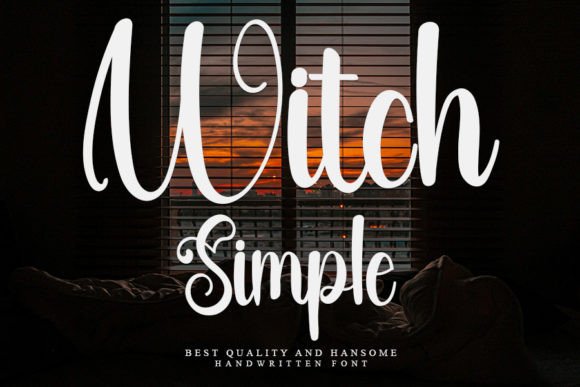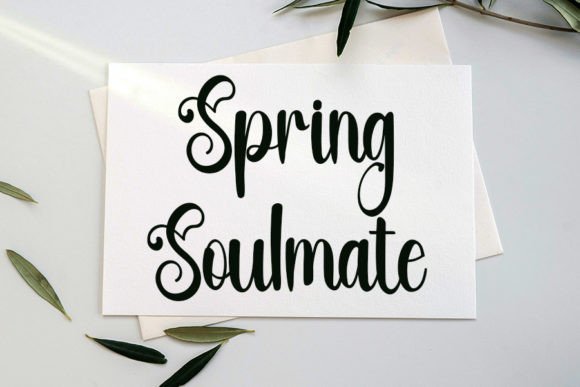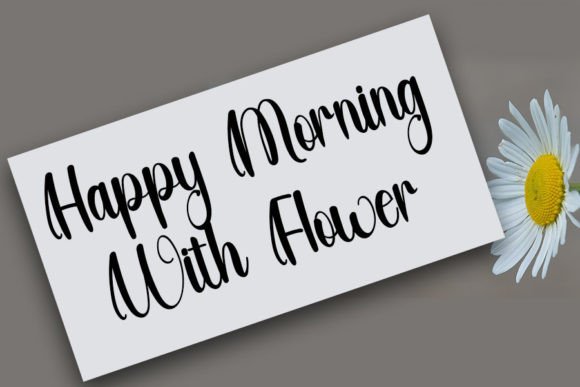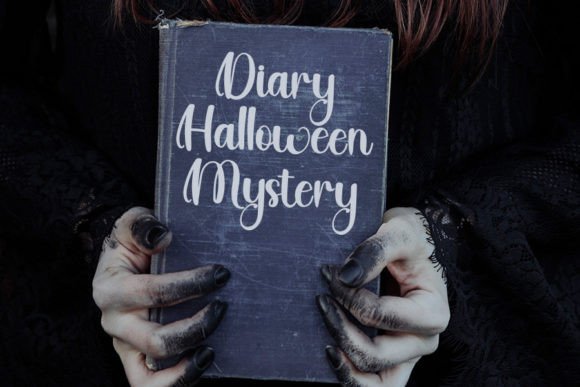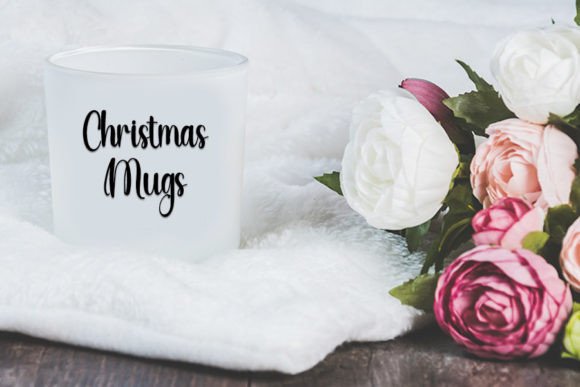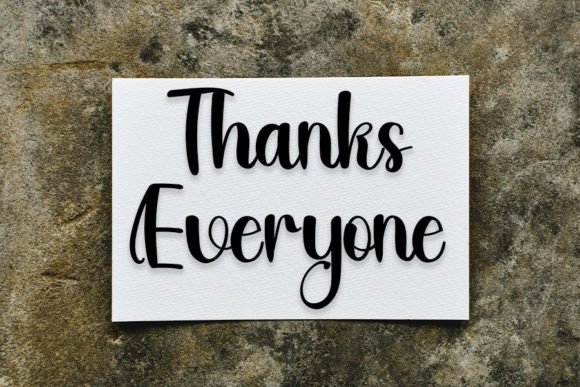
**Simple Witch** is a beautiful and refined script font that showcases a classy, elegant, and modern appearance. This versatile font is well-suited for a diverse range of design applications, making it an ideal choice for logos, branding, invitations, stationery, wedding designs, social media posts, and more.
The script style of **Simple Witch** contributes to its classy and elegant aesthetic. With flowing and graceful letterforms, this font adds a touch of sophistication to any project, making it suitable for designs that require a timeless and refined look.
In logos and branding, **Simple Witch** becomes a defining element that communicates a sense of style and modernity. Its script design adds a touch of elegance, making it suitable for businesses and projects that want to convey a polished and sophisticated image.
For wedding designs and invitations, the font brings a level of class and beauty that enhances the overall aesthetic. Its modern look makes it versatile, fitting into various wedding themes and styles.
In social media posts and stationery, **Simple Witch** stands out as a font that adds a touch of elegance to your visual communication. Whether used in digital or print media, its refined appearance creates a lasting impression.
The flexibility of **Simple Witch** extends to various design applications, allowing it to enhance the visual appeal of a wide array of projects. Its modern and classy look makes it suitable for creating a cohesive and polished design across different platforms.
In conclusion, **Simple Witch** is a font that combines beauty, refinement, and modernity, making it a perfect choice for a range of design projects. Whether you’re working on logos, invitations, or social media posts, let **Simple Witch** be the beautiful and refined script font that elevates your creations.